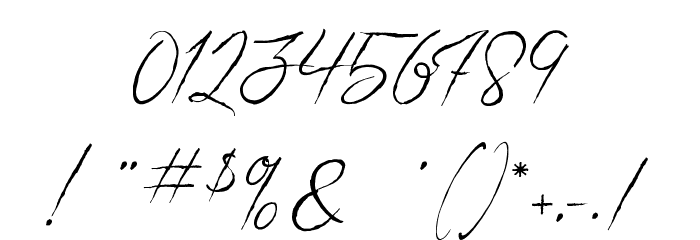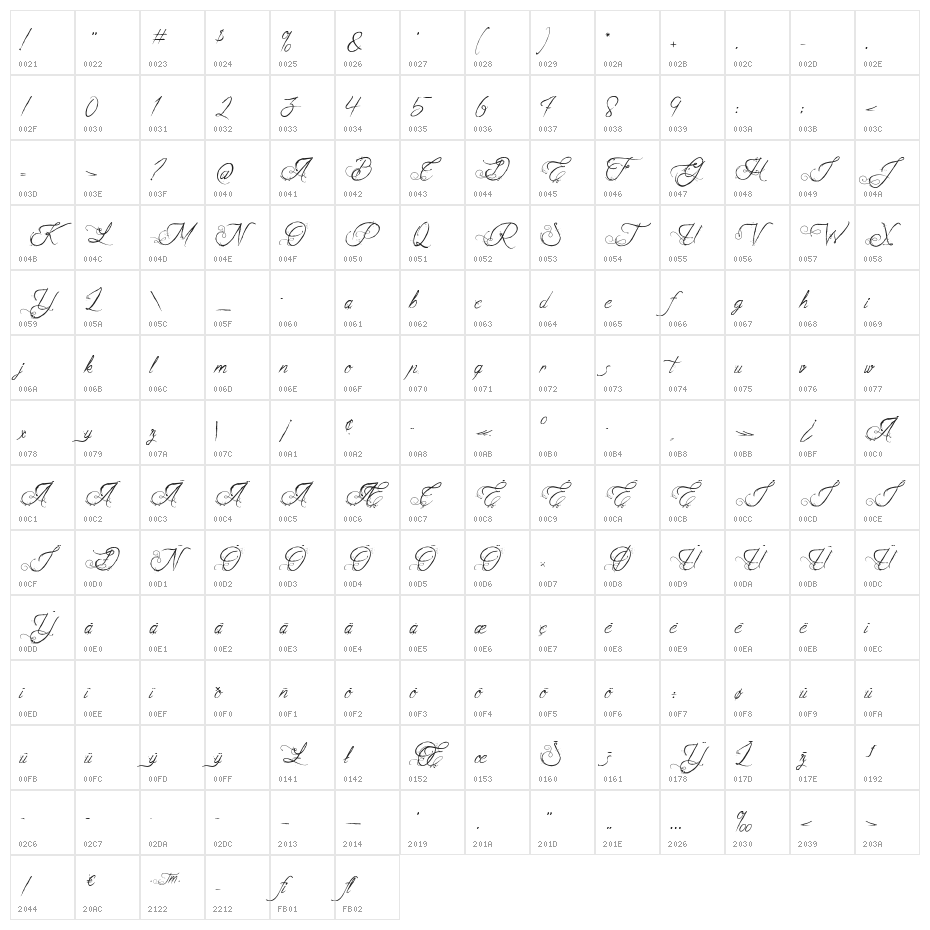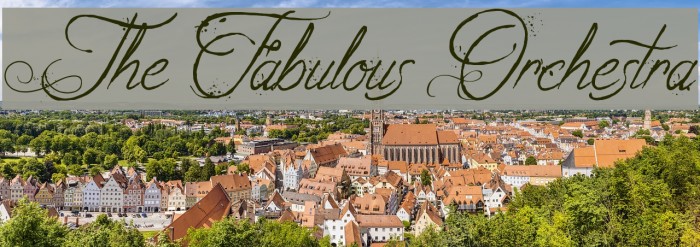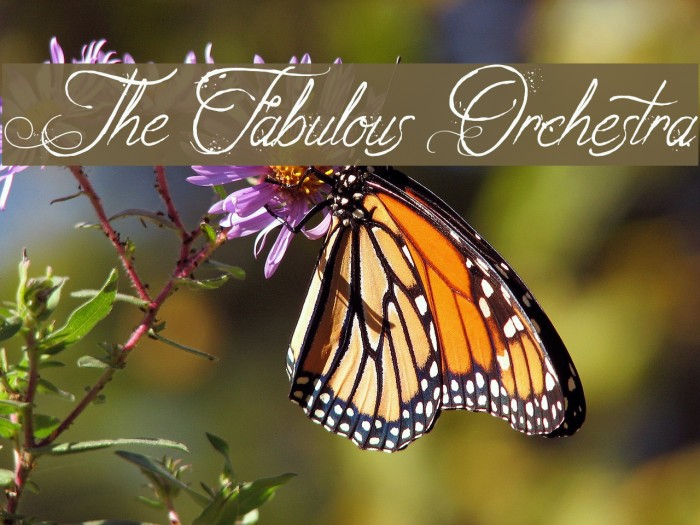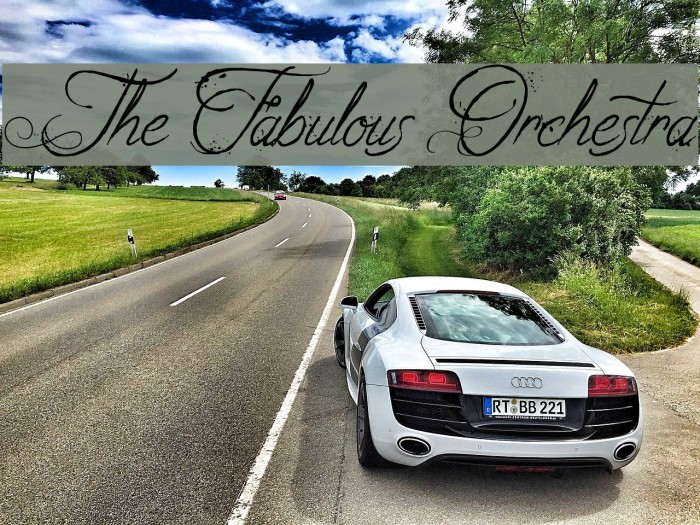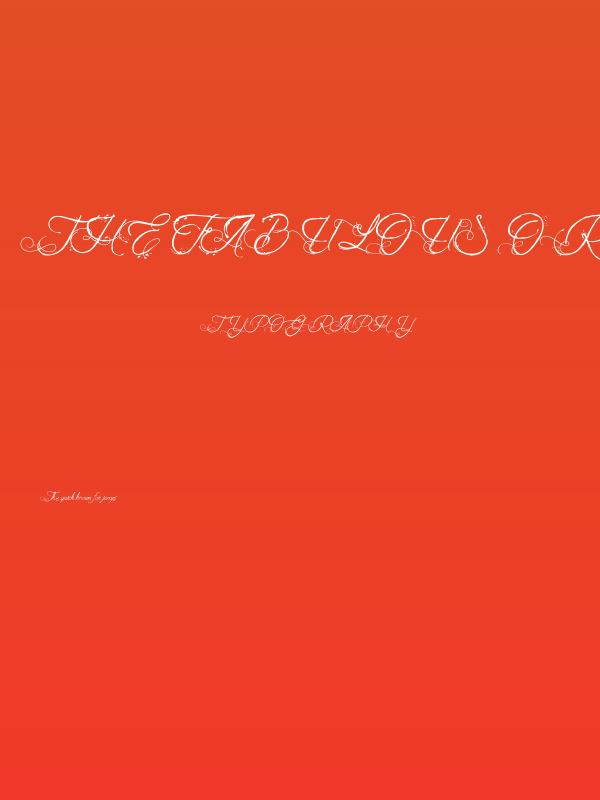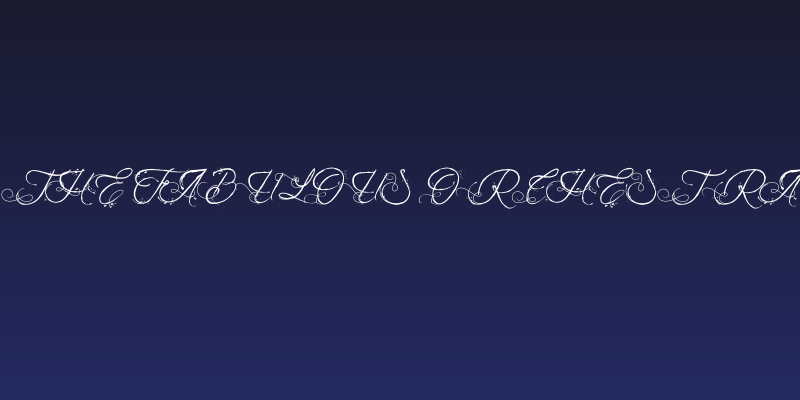
The Fabulous Orchestra Font
The Fabulous Orchestra Description
This elegant script font features intricate flourishes and a calligraphic style, reminiscent of classical handwriting. The uppercase letters are adorned with elaborate swirls, giving a sense of sophistication and luxury. The lowercase letters maintain a fluid and graceful appearance, with a slightly more restrained embellishment. The numerals and special characters are designed to complement the overall aesthetic, maintaining the same elegant and decorative style. This font is perfect for projects that require a touch of elegance and refinement, such as wedding invitations, formal event programs, or luxury branding.
| Proposed Projects | Ideal for wedding invitations, formal event programs, luxury branding, and elegant stationery. |